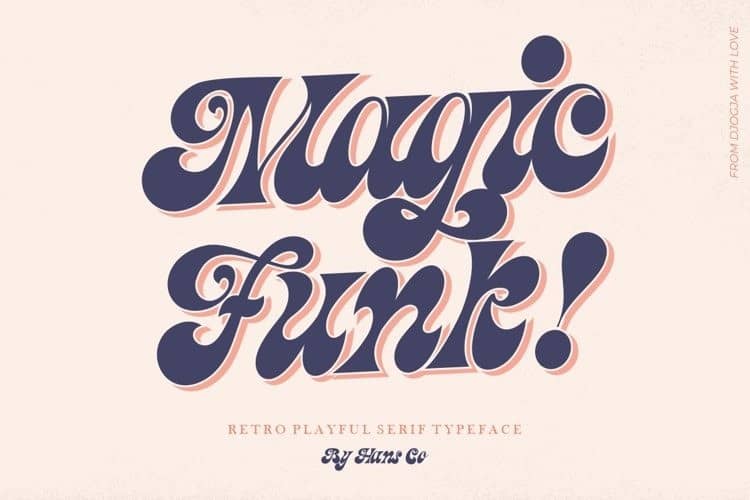
Magic Funk Font
Magic Funk Serif Font, designed by HansCo is a bold and vintage serif typeface that had that groovy 70s feel. Magic Funk is perfectly into those nostalgic moodboards and vintage logos. It come with a unique lower and uppercase plus numbers, punctuation & multilingual letters.